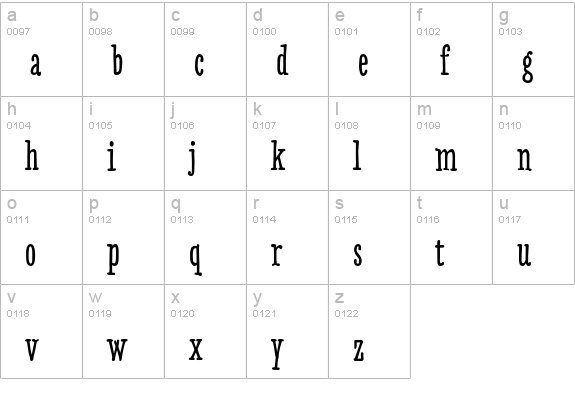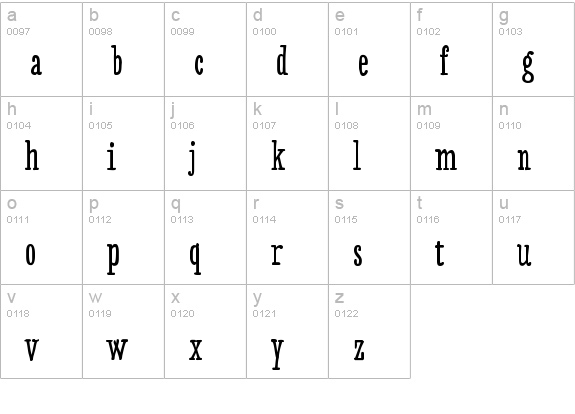
Love Potion No. 10 Bold is a strong, high-contrast variant in the Love typeface family \xE2\x80\x94 well suited to headlines, attention-grabbing titles, and strong calls-to-action.
Love Potion No. 10 Bold font is a mesmerizing and enchanting typeface that exudes a sense of passion and romance. With its bold and striking appearance, this font is perfect for adding a touch of drama and elegance to your designs. The intricate details and curves of each letter make it a truly unique and eye-catching choice for any project. What sets Love Potion No. 10 Bold font apart is its ability to evoke feelings of love and desire, making it ideal for wedding invitations, love letters, or any design that calls for a touch of romance. Its bold strokes and intricate design make it stand out from the crowd, ensuring that your words will make a lasting impression. Best of all, Love Potion No. 10 Bold font is freely available to download at FontsMarket.com. So why wait? Add a dash of love and romance to your designs today with this captivating font.